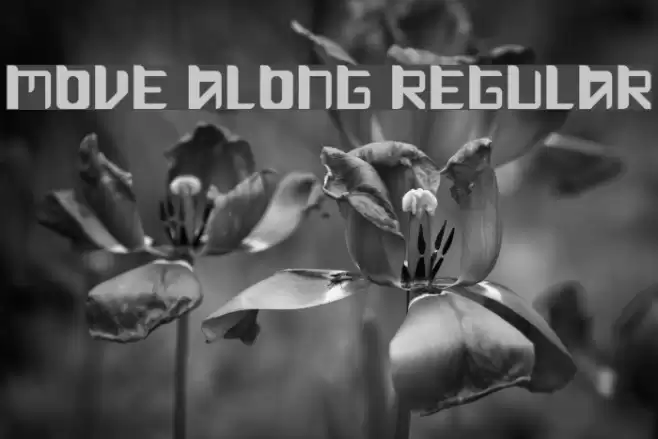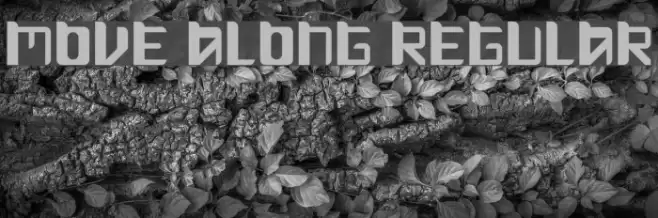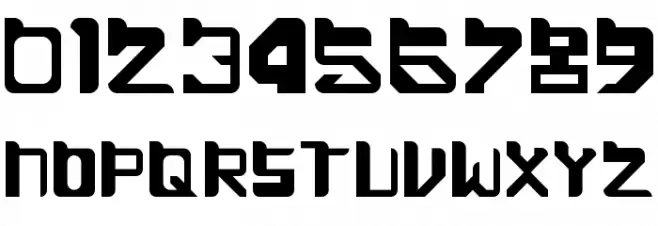
Move Along Regular Font
Move Along Regular Description
This font features a bold and geometric design with a futuristic flair. The characters are constructed with sharp angles and straight lines, giving it a modern and edgy appearance. The uppercase and lowercase letters maintain a consistent style, with unique cuts and shapes that add a sense of movement and dynamism. The numbers follow the same design principles, ensuring uniformity across all characters. This font's distinct style makes it stand out, ideal for projects that require a strong visual impact.
A bold, geometric font with a futuristic and edgy design from Uncategorized fonts.
- Proposed Projects: Ideal for sci-fi themed designs, video game titles, posters, and branding that requires a modern and bold statement.